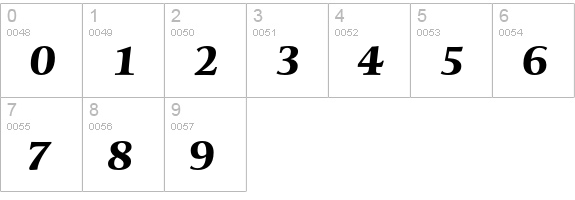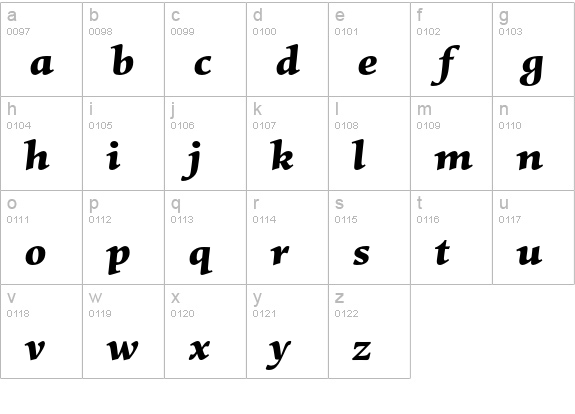
Mentor Black Italic is a maximum-weight, dramatic, italic variant in the Mentor typeface family \xE2\x80\x94 well suited to maximum-impact headlines, posters, and packaging.
Mentor Black Italic font is a sophisticated and elegant typeface that exudes a sense of modernity and professionalism. Its sleek design features sharp, angled serifs and bold strokes that command attention and make a statement. The italic style adds a touch of flair and dynamism to any text, making it perfect for use in branding, advertising, and editorial design. What sets Mentor Black Italic font apart is not only its striking appearance but also its versatility and readability. Whether used for headlines, subheadings, or body text, this font ensures that your message is conveyed with clarity and impact. Best of all, Mentor Black Italic font is available for free download at FontsMarket.com. Now you can elevate your designs with this premium typeface without any cost. Don't miss out on the opportunity to enhance your projects with the timeless elegance of Mentor Black Italic font.